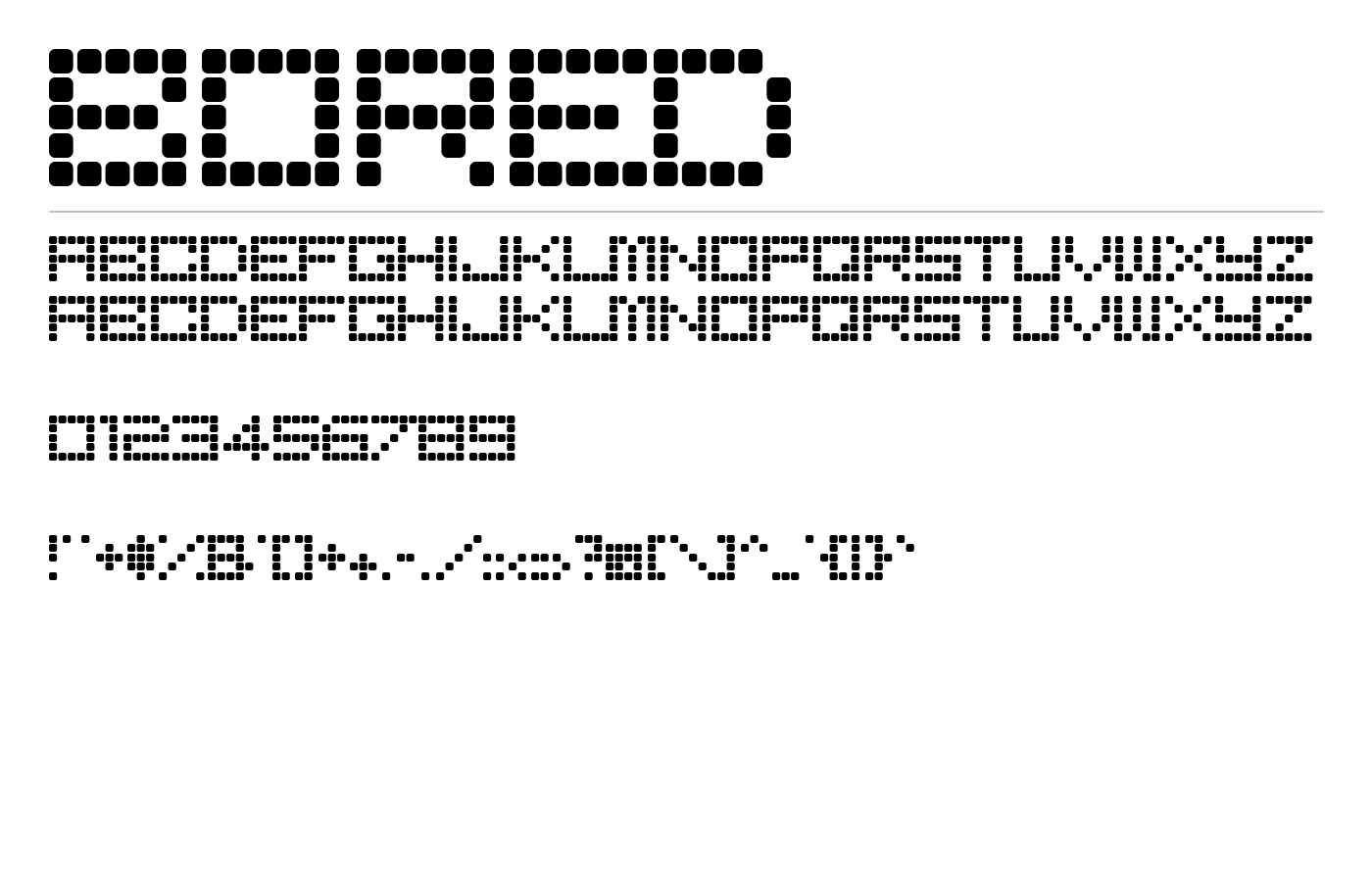
Bored Font is a unique, pixel-inspired sans serif typeface characterized by its blocky, dotted grid construction, giving it a digital, retro tech vibe. Its uniform weight and square shapes create a futuristic and somewhat playful feel, making it an excellent choice for video game graphics, digital displays, or modern tech branding that seeks a quirky edge. This font works best in headlines, logos, and creative projects where a bold, attention-grabbing, and unconventional look is desired.
Bored Font
About Bored Font